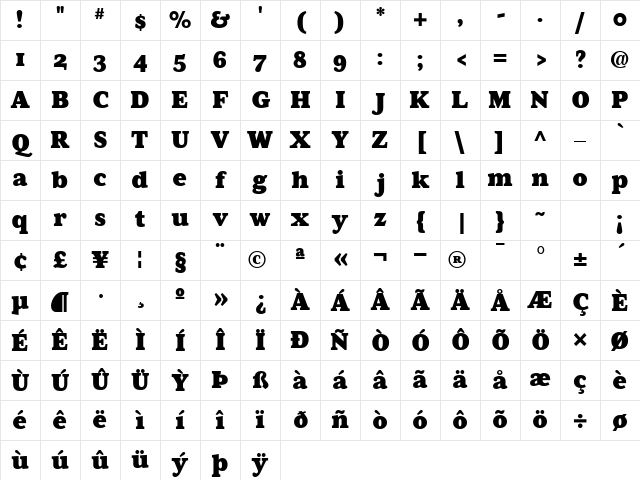
AureaUltra Roman Free Font
AureaUltra Roman
Design Context for AureaUltra
AureaUltra is a composed and adaptable typeface that performs quietly and consistently across a wide range of design contexts.